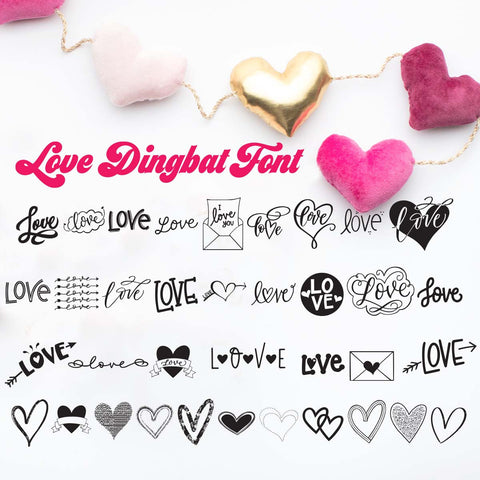
Love Dingbat Font | Hearts and Love symbols | Wedding, Anniversary, Valentine's Font
Looking for that perfect "Love" or Heart symbol? Look no further! You'll receive THIRTY SIX (36) unique and fun dingbat symbols, perfect for invitations, signs, monogram designs, or when you just want to add that little perfect touch to something special.